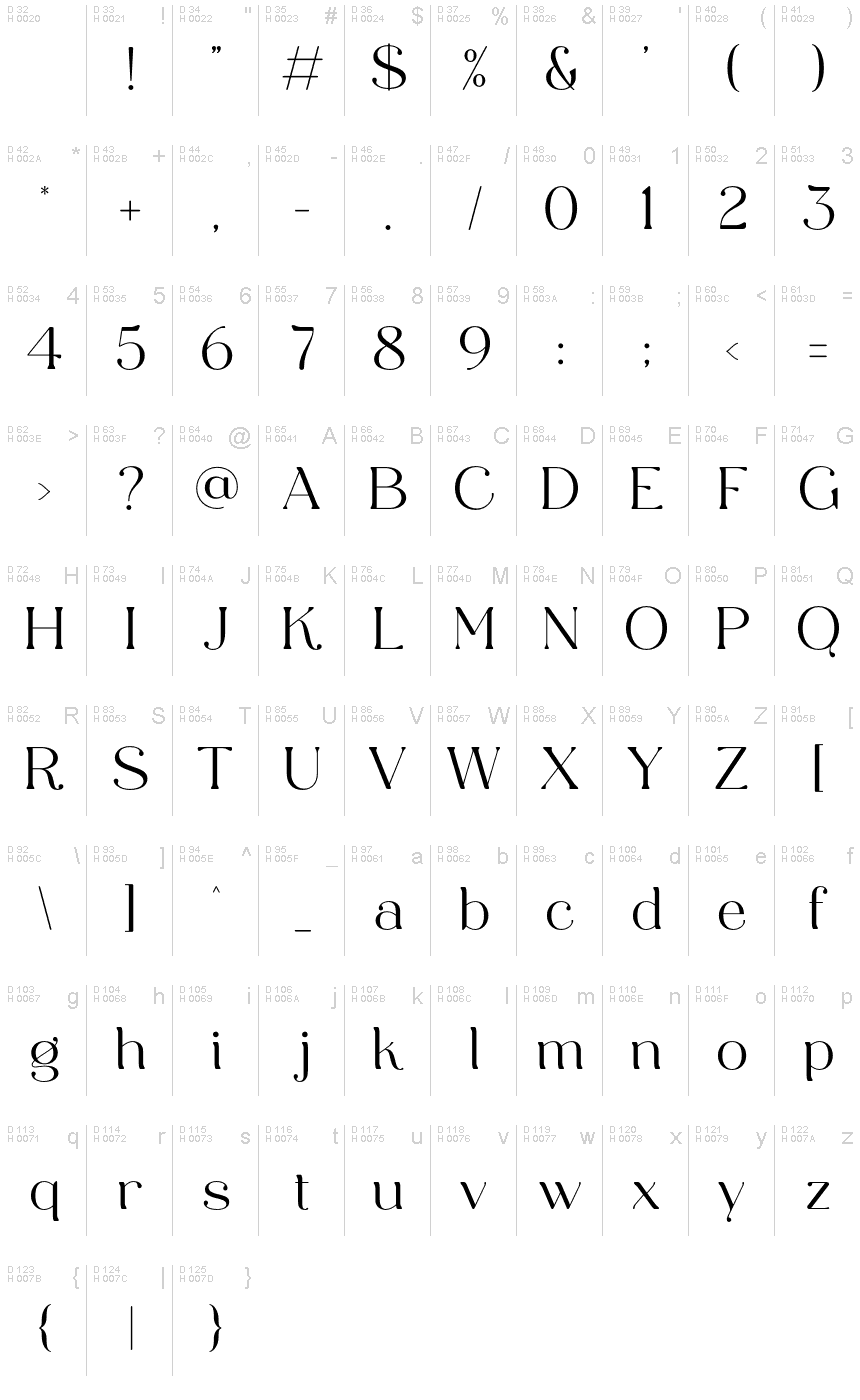
Gerola
Gerola, the elegant serif font designed by BrandSemut, is a harmonious blend of classic and contemporary elements. Its semi-light weight adds a touch of sophistication and refinement to any project.
With its delicate strokes and graceful curves, Gerola is perfect for capturing attention in elegant wedding invitations. Its legibility makes it suitable for long-form content such as books and magazines, while its timeless charm also lends itself well to luxury branding and high-end fashion editorials.
Let Gerola elevate your designs with its understated beauty and timeless appeal.